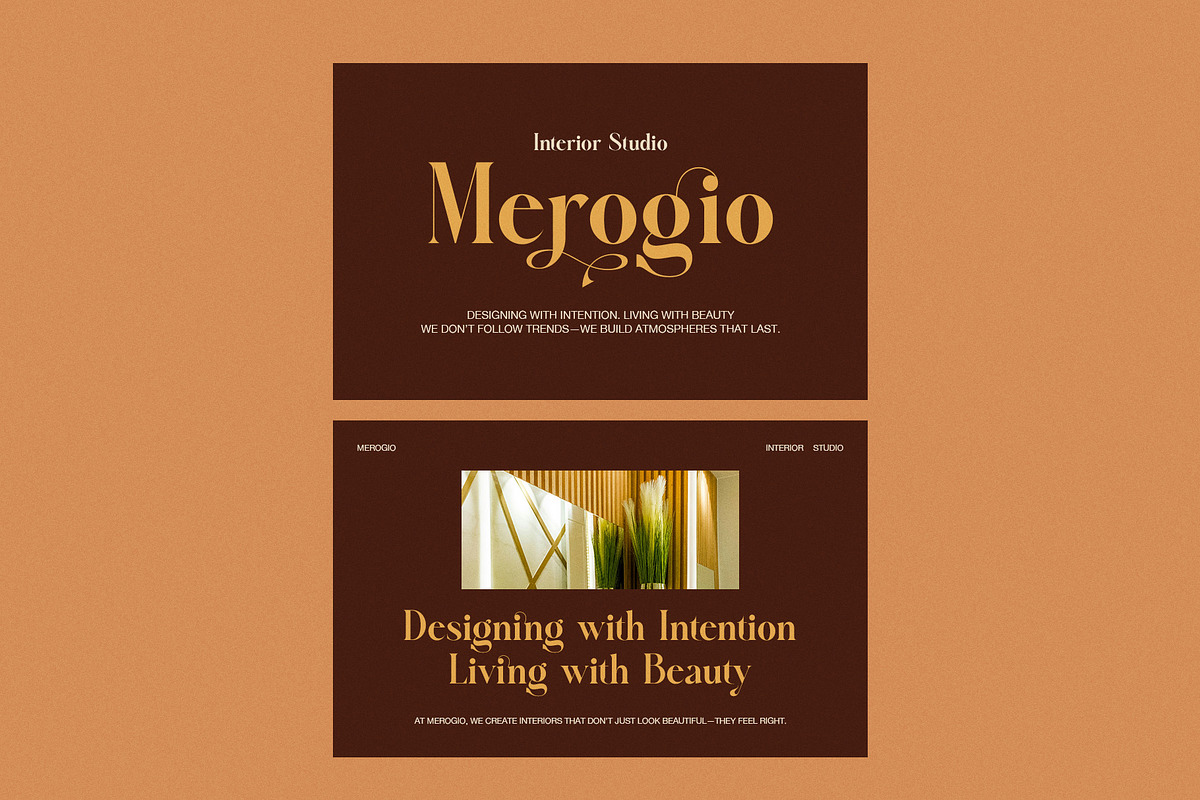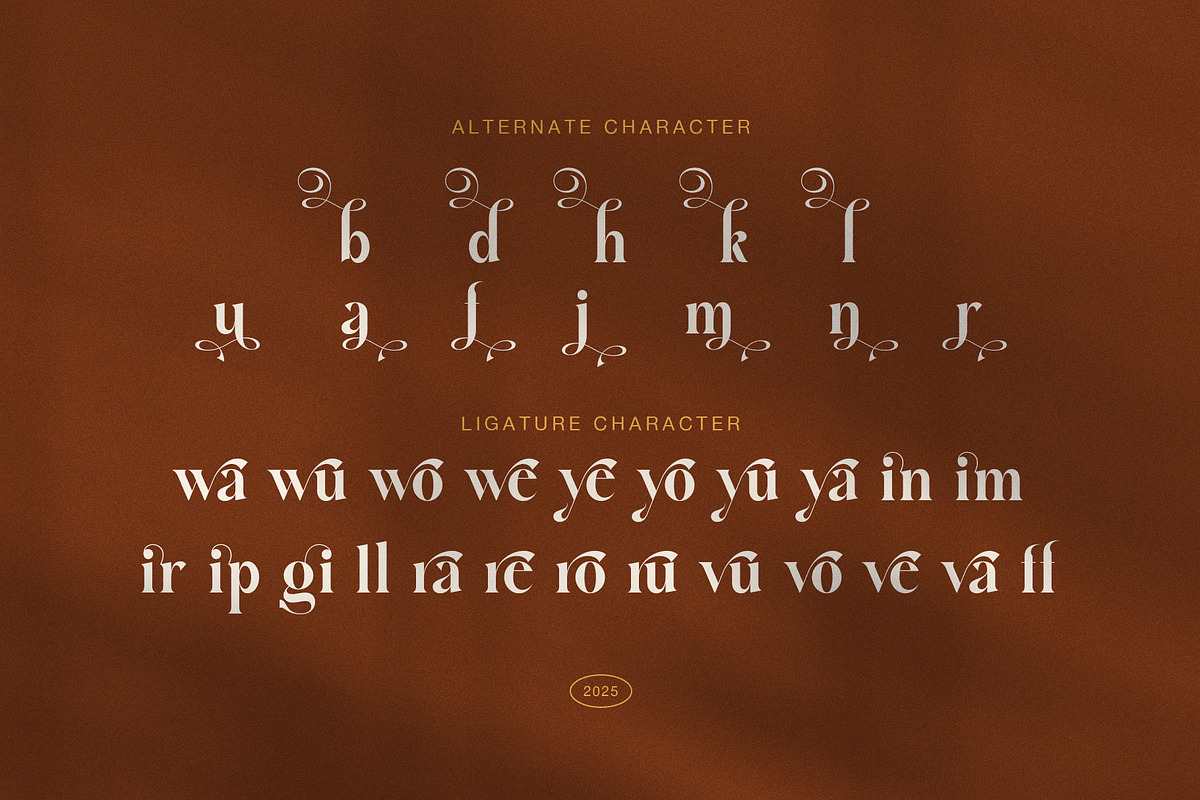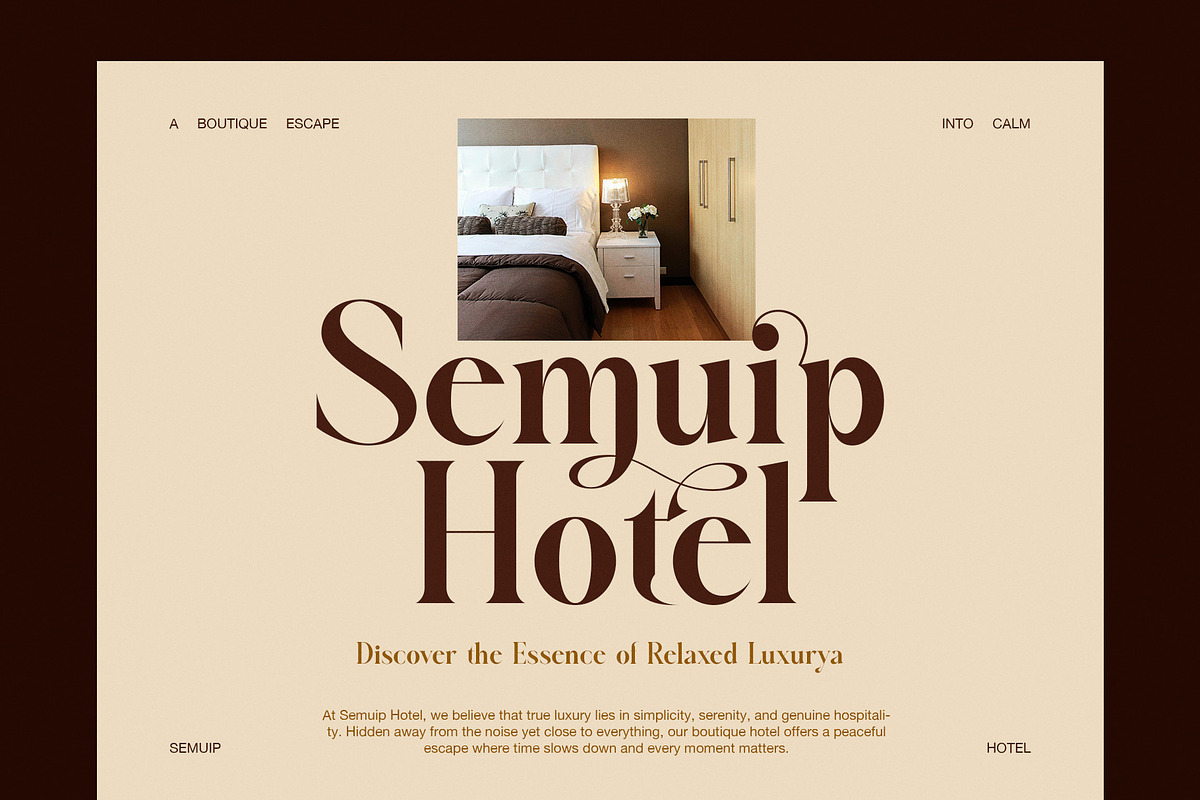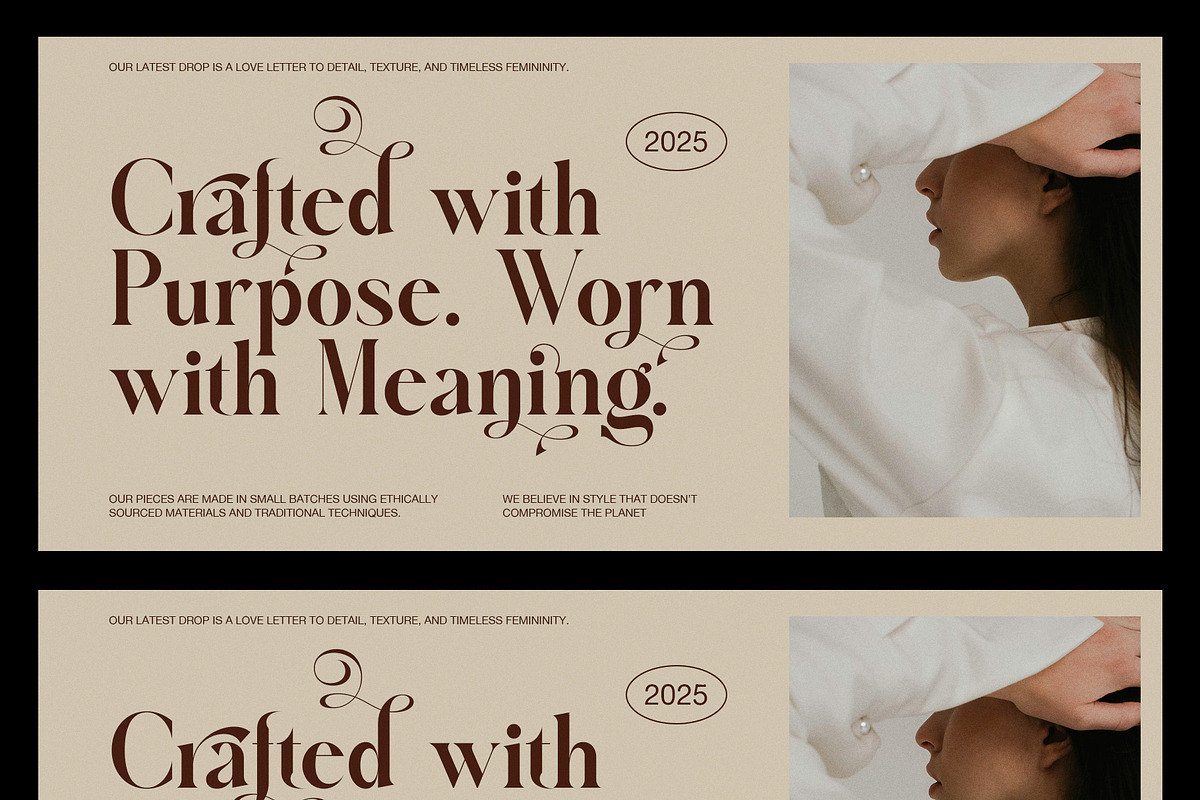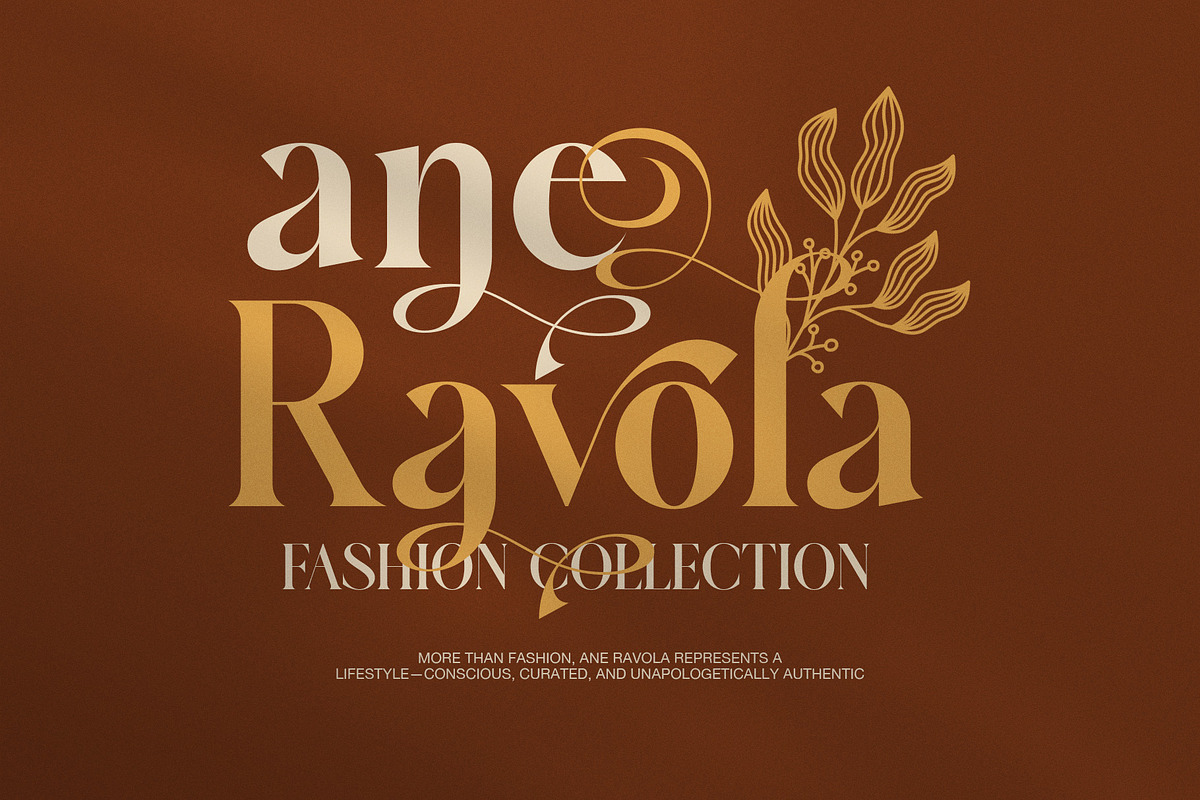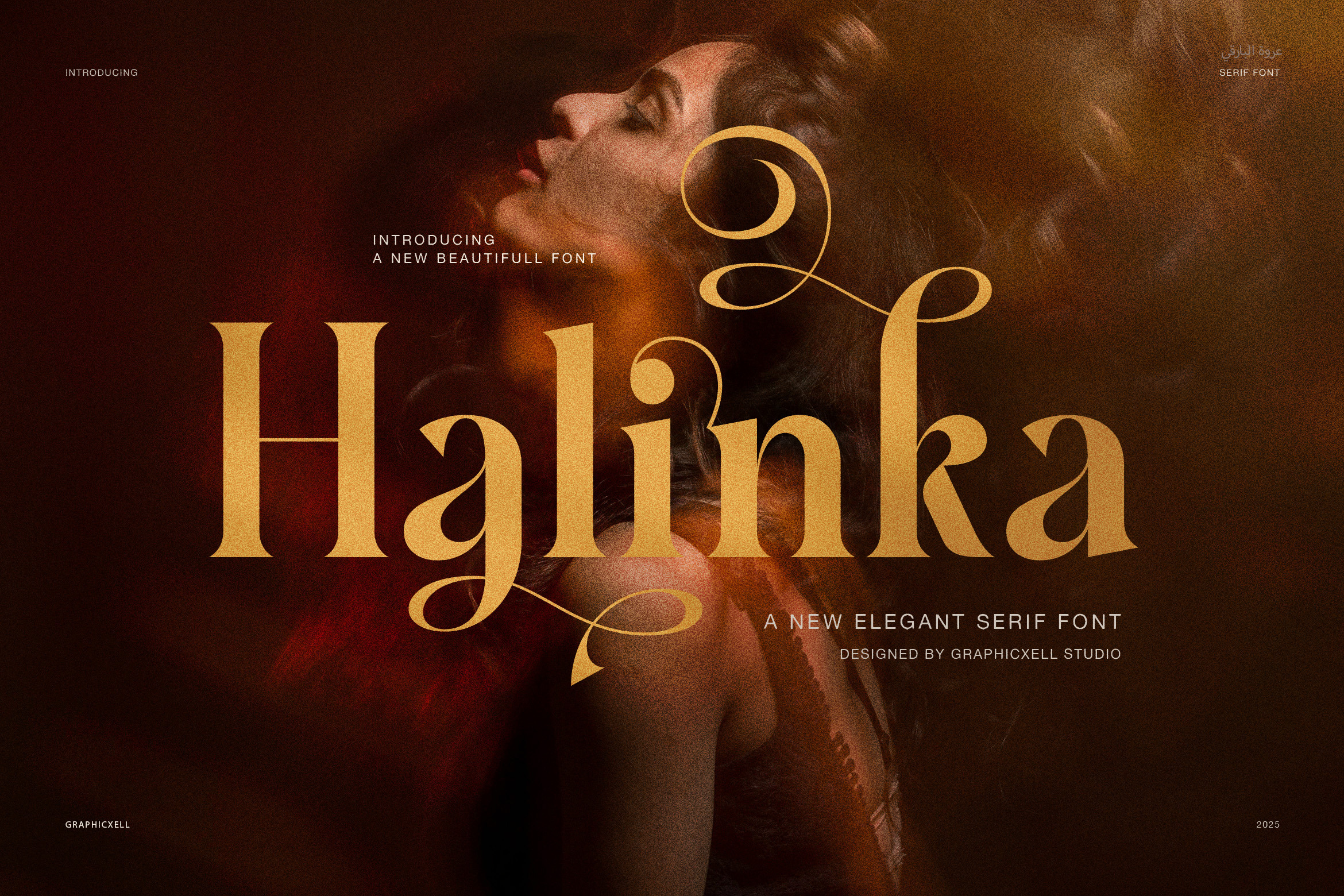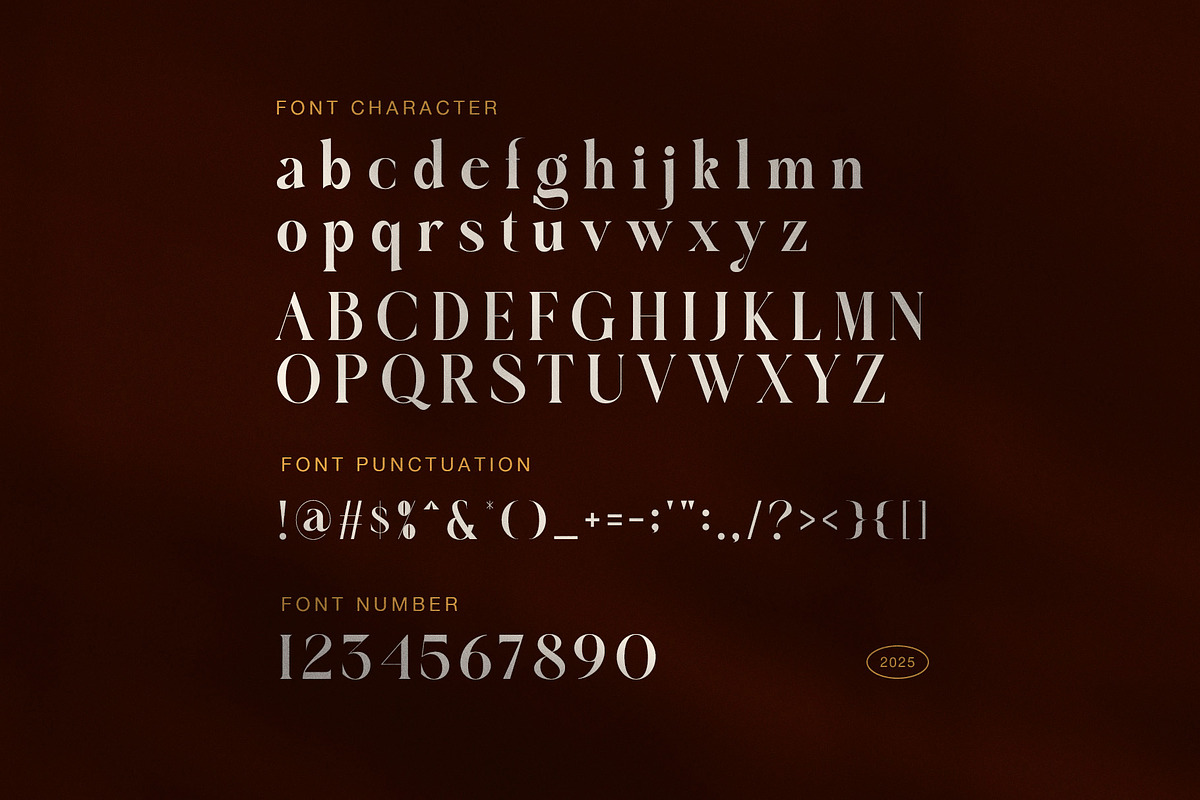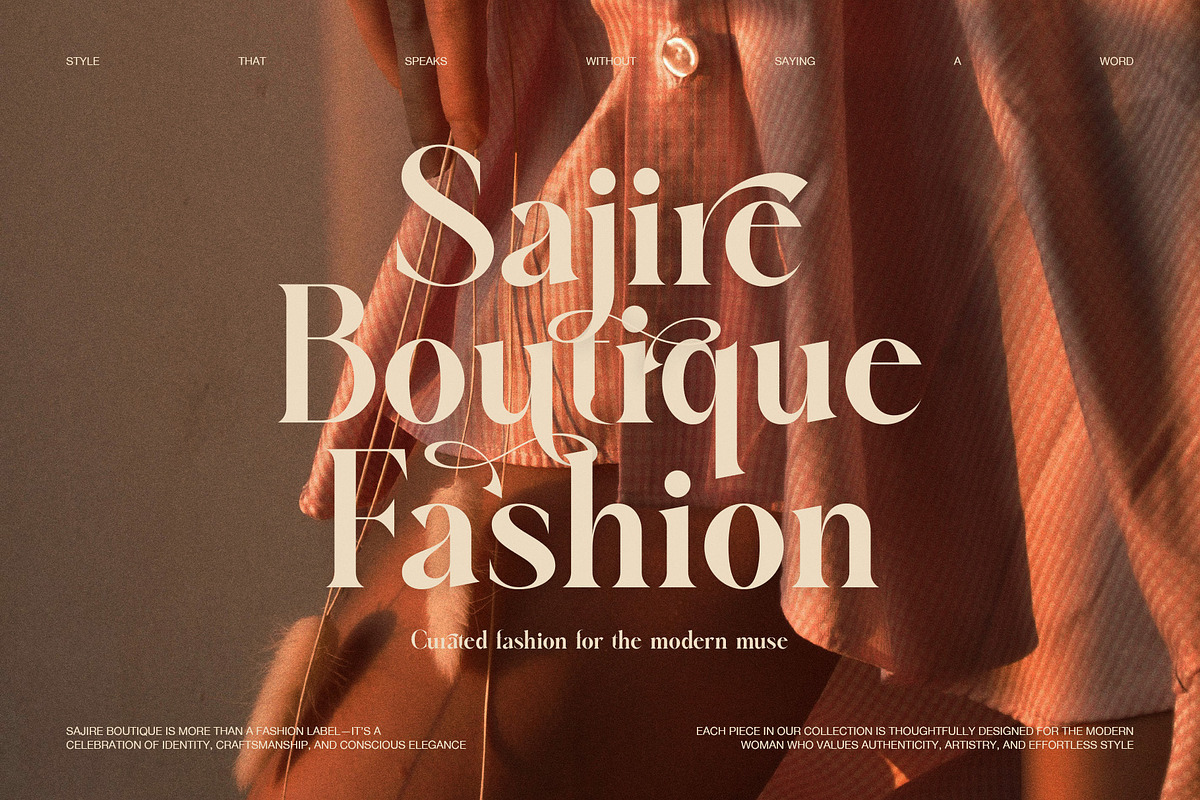
Halinka – Elegant Modern Serif Font
Halinka Elegant Serif Font blends timeless elegance with modern refinement. It is designed for creators who value clarity, balance, and luxury. Each stroke flows gracefully, forming smooth curves that bring every project to life.
Because of its thoughtful design, Halinka works beautifully across various applications. It looks stunning in logos, invitations, packaging, and editorials. Moreover, its clean form ensures high readability while keeping a refined and artistic appearance. Therefore, your message will always appear stylish and professional.
In addition, the font features elegant ligatures and creative alternates that enhance visual harmony. These details allow designers to craft unique compositions effortlessly. As a result, every layout gains a premium, high-end look without losing simplicity.
You can pair Halinka with sans-serif fonts for a modern contrast. Alternatively, use it alone to create a timeless and confident aesthetic. Besides, its soft balance between thick and thin strokes adds natural rhythm and visual comfort. This makes it ideal for both headlines and body text.
Furthermore, Halinka adapts well to different creative directions. Whether you design for weddings, fashion, or editorial layouts, it delivers a sense of grace and professionalism. Also, it maintains elegance on both digital and print platforms, making it versatile for all branding styles.
Luxury branding and packaging
Editorial layouts and magazines
Wedding invitations and stationery
Fashion, beauty, and lifestyle promotions
Social media posts and modern advertising
Ultimately, Halinka Elegant Serif Font offers more than just letters — it delivers a refined experience. As a result, your projects feel timeless, elegant, and visually inspiring from the very first glance.